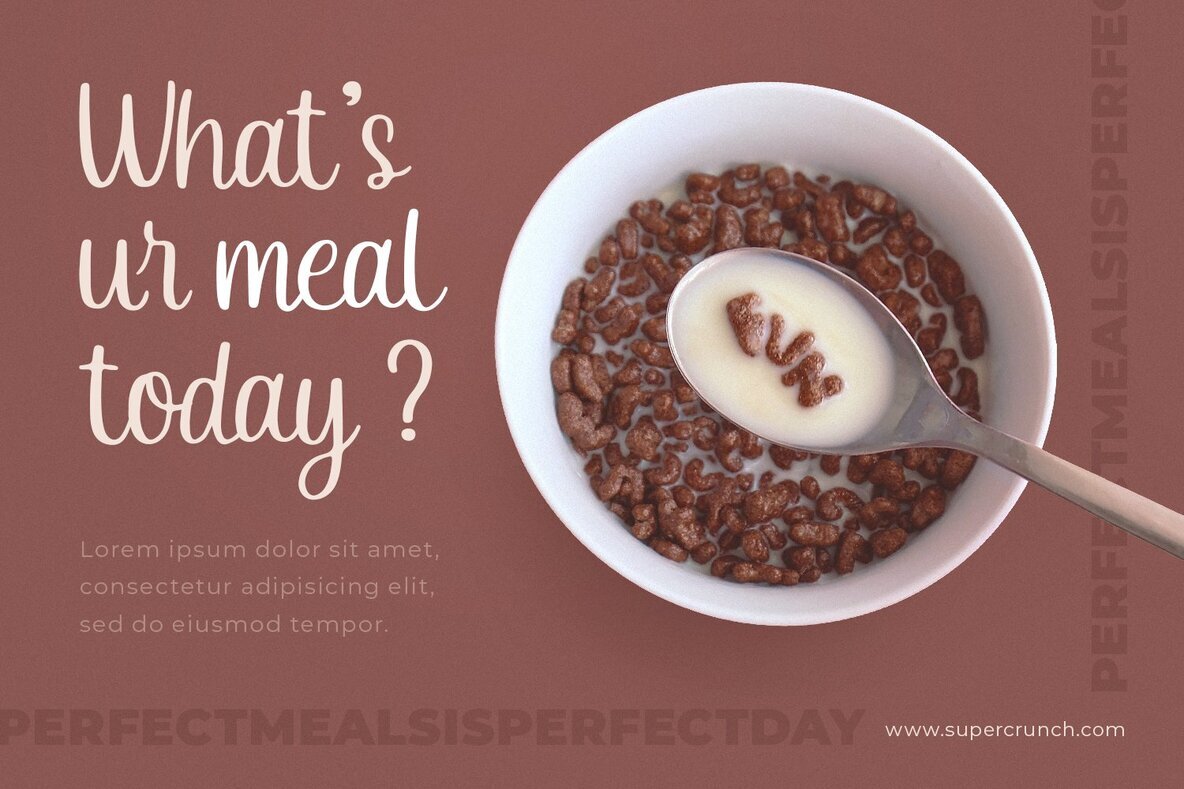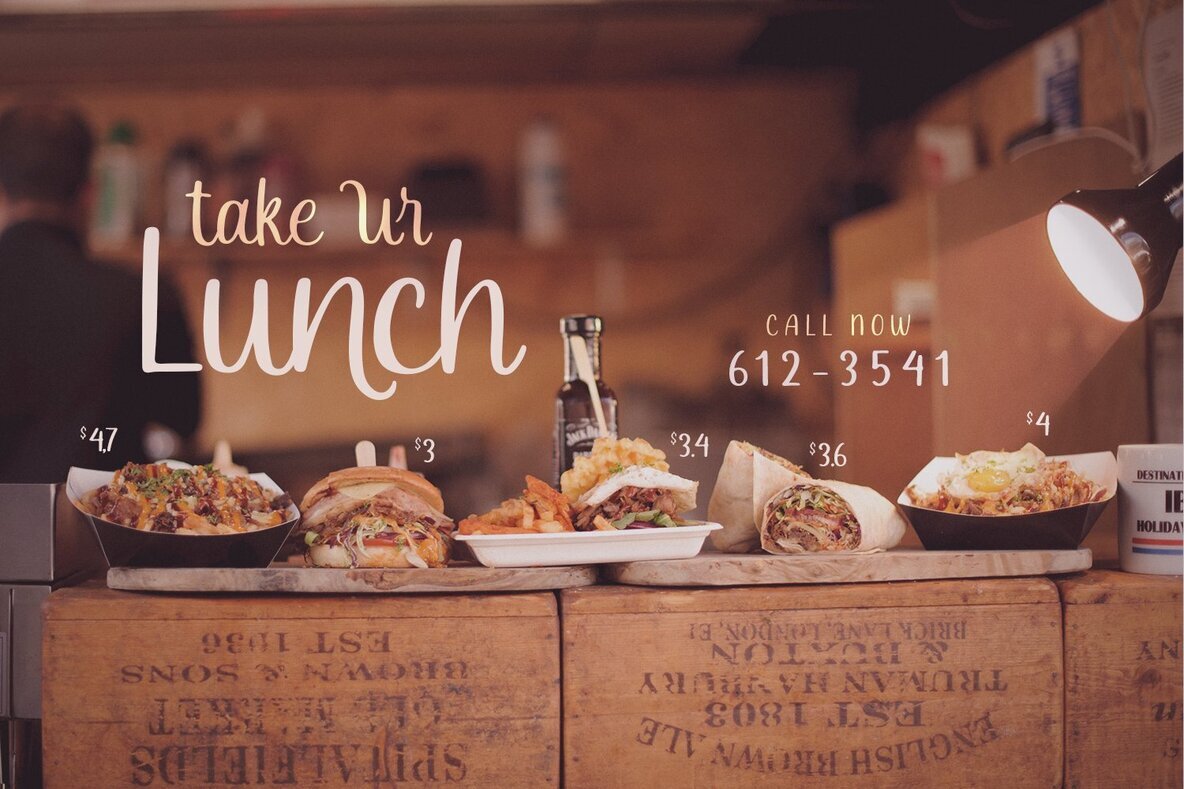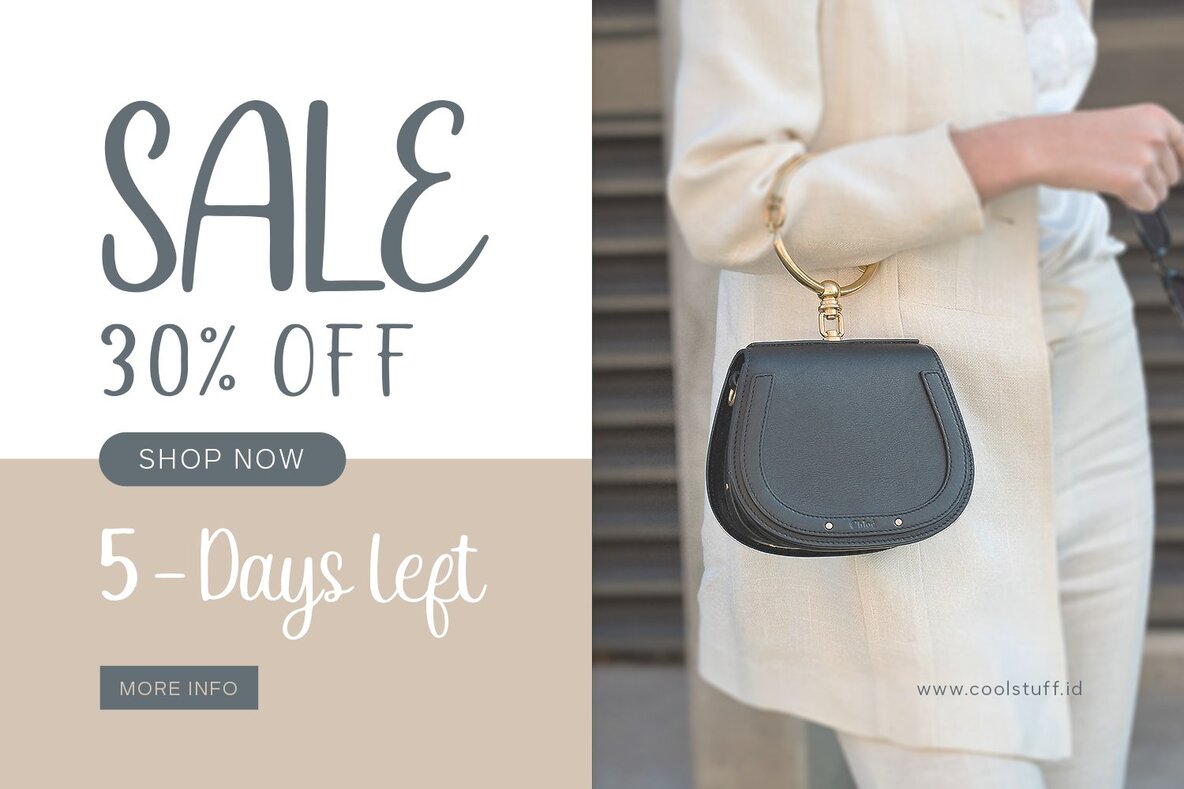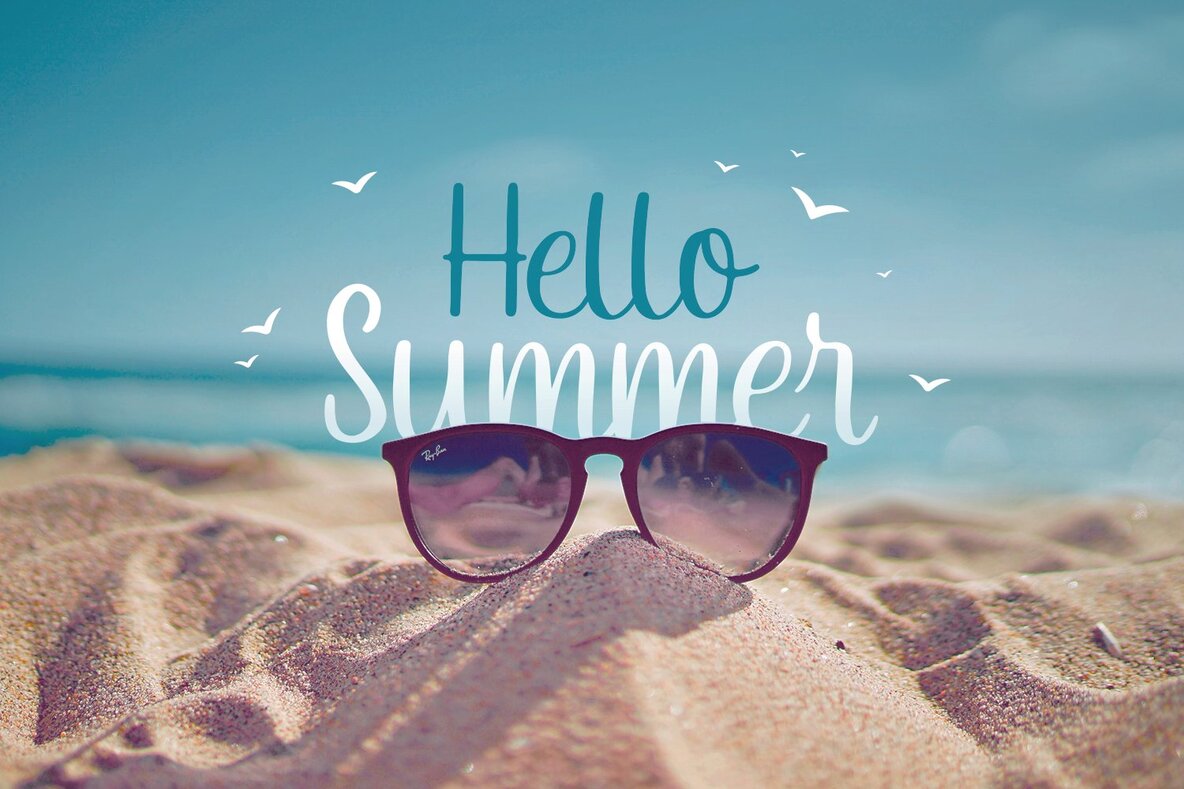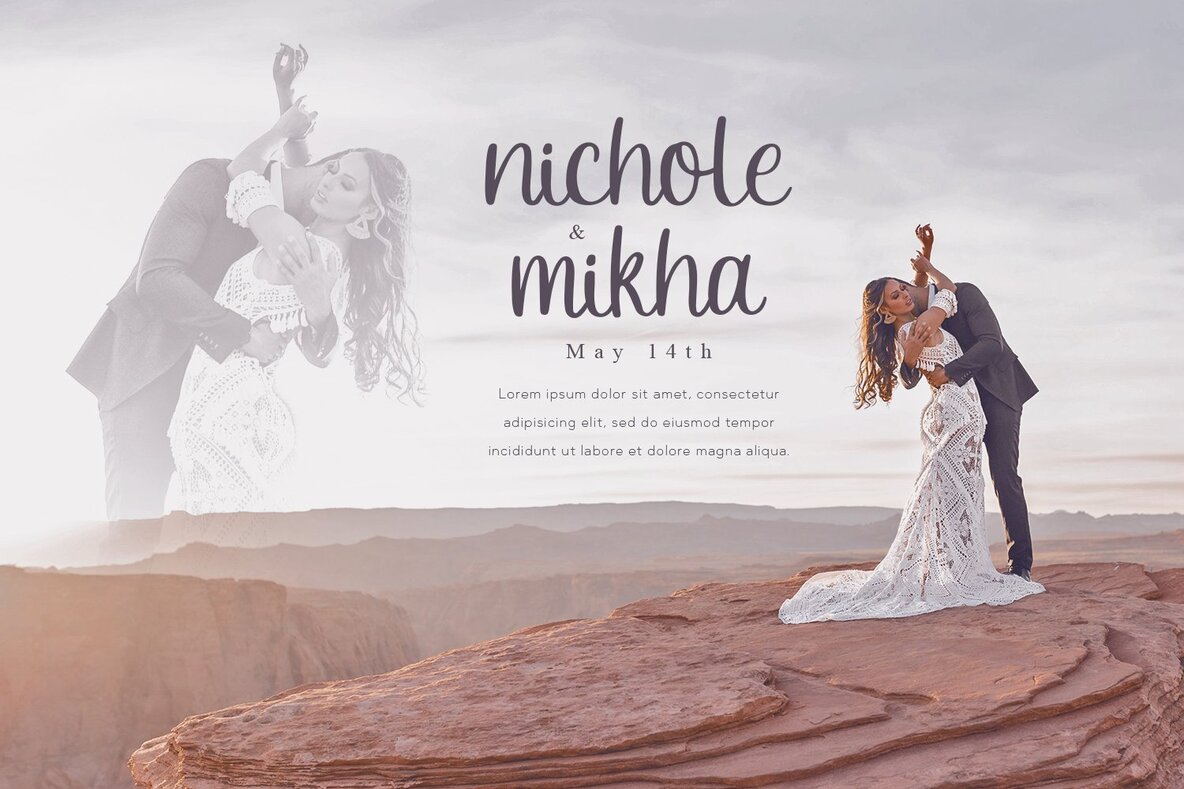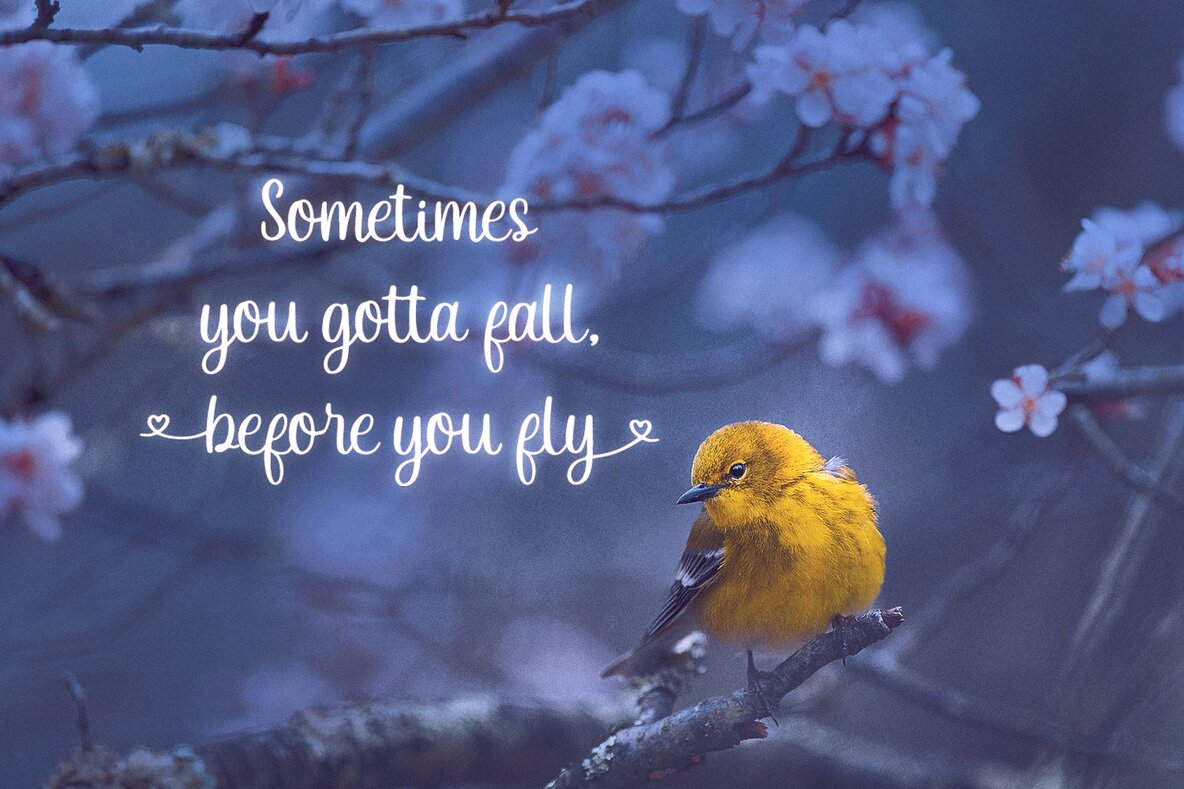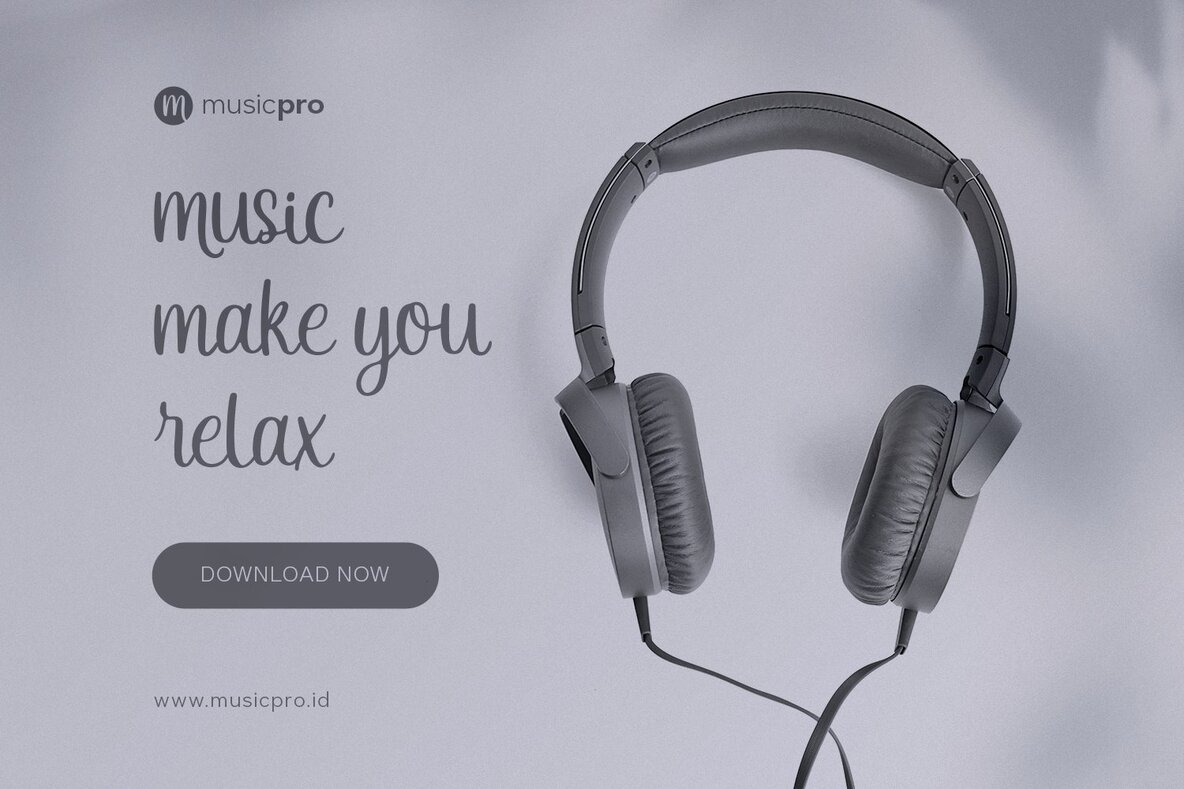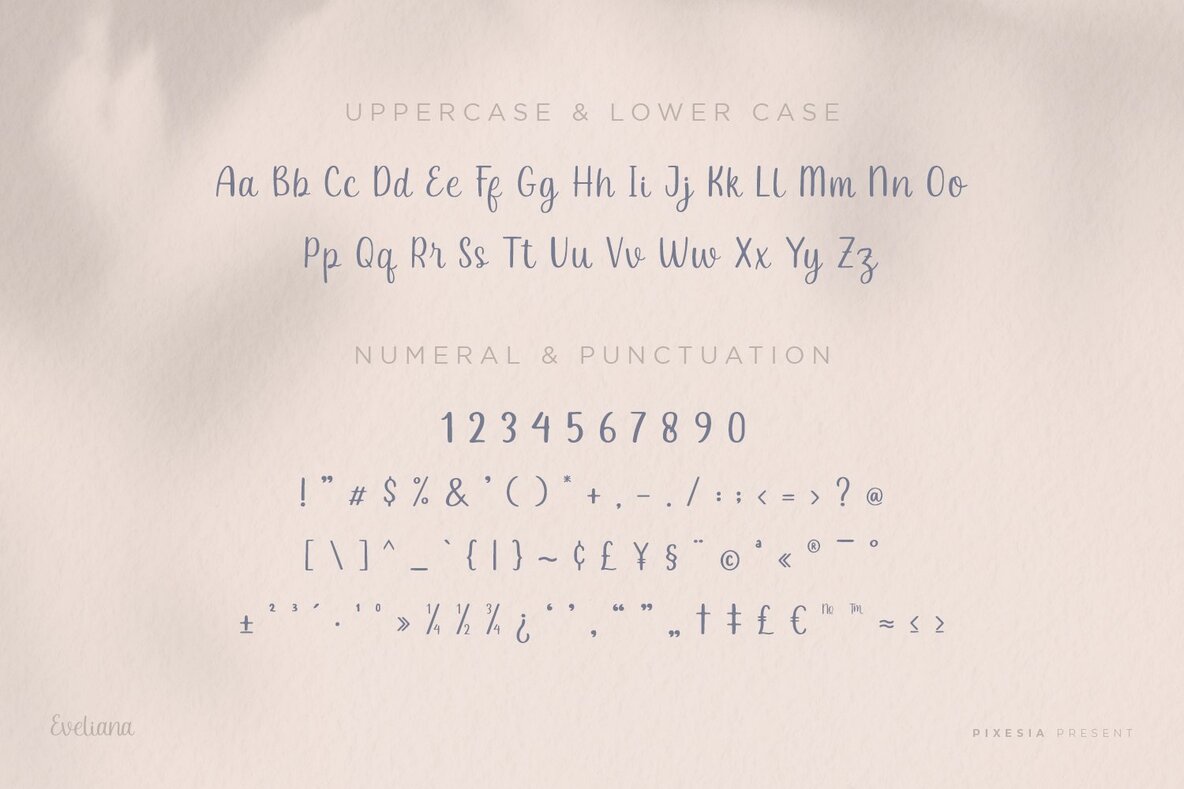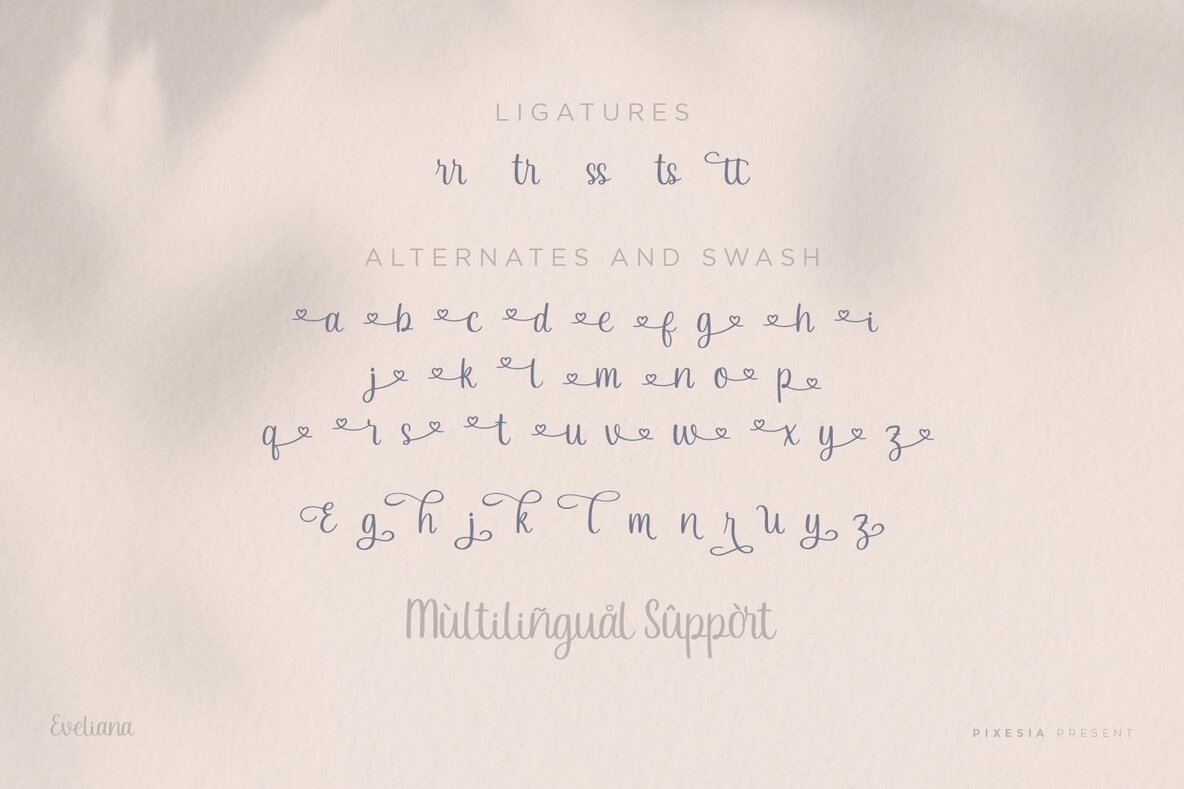
Eveliana Font
Eveliana Regular
Embodying elegance and a smooth flow, Eveliana is a modern script font designed to add a personalized charm to various designs. This font seamlessly enhances projects where a touch of sophistication is essential, such as wedding invitations, greeting cards, and logos.Eveliana: A Serene Script Font for Personal Touches
Pixesia Studio is a Palu-based type foundry known for its broad, concept-driven catalog of fonts that span everything from retro display styles to elegant serifs and festive scripts. Established in 2020 in Central Sulawesi, Indonesia, Pixesia quickly built a reputation for delivering eye-catching, commercially...